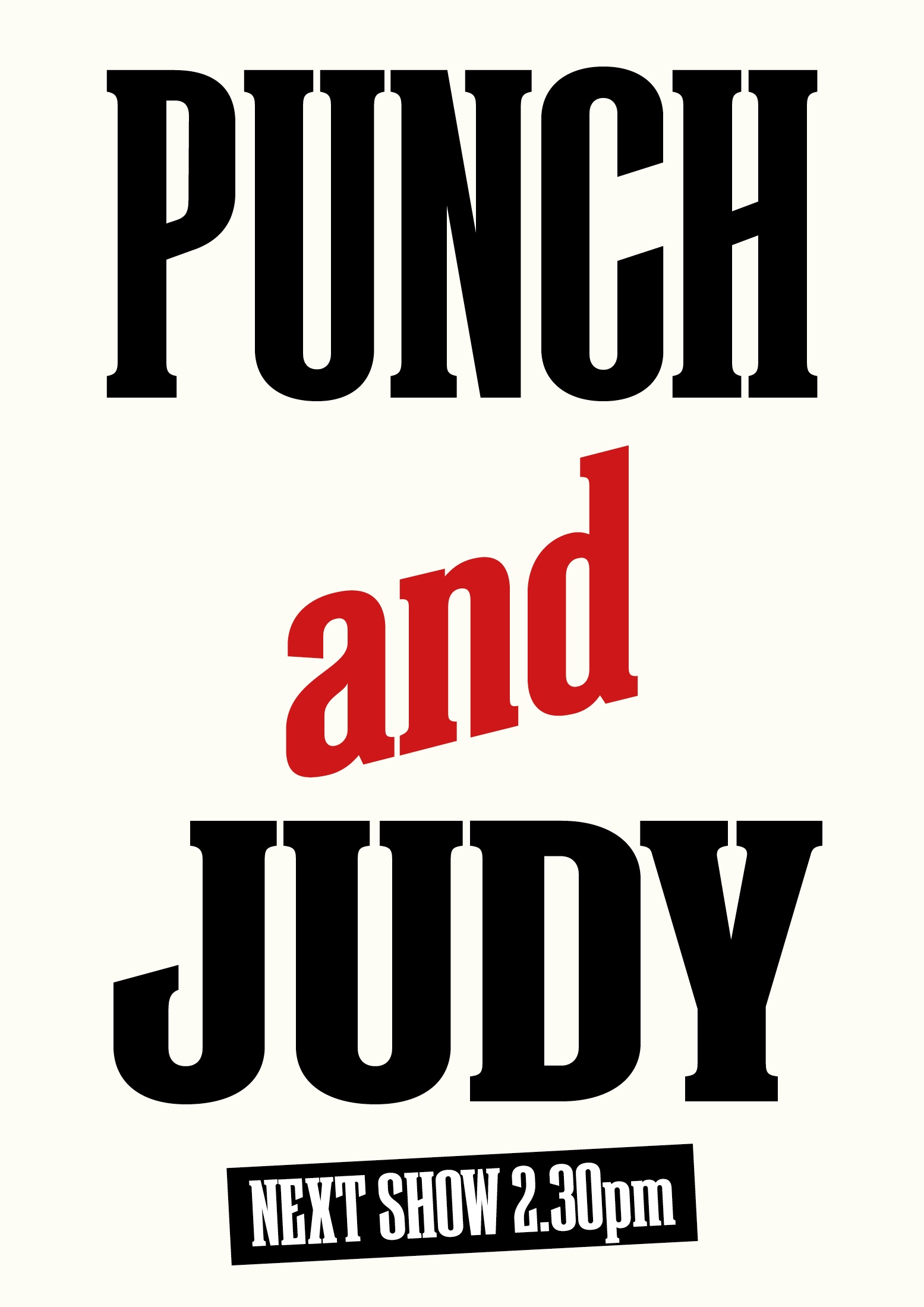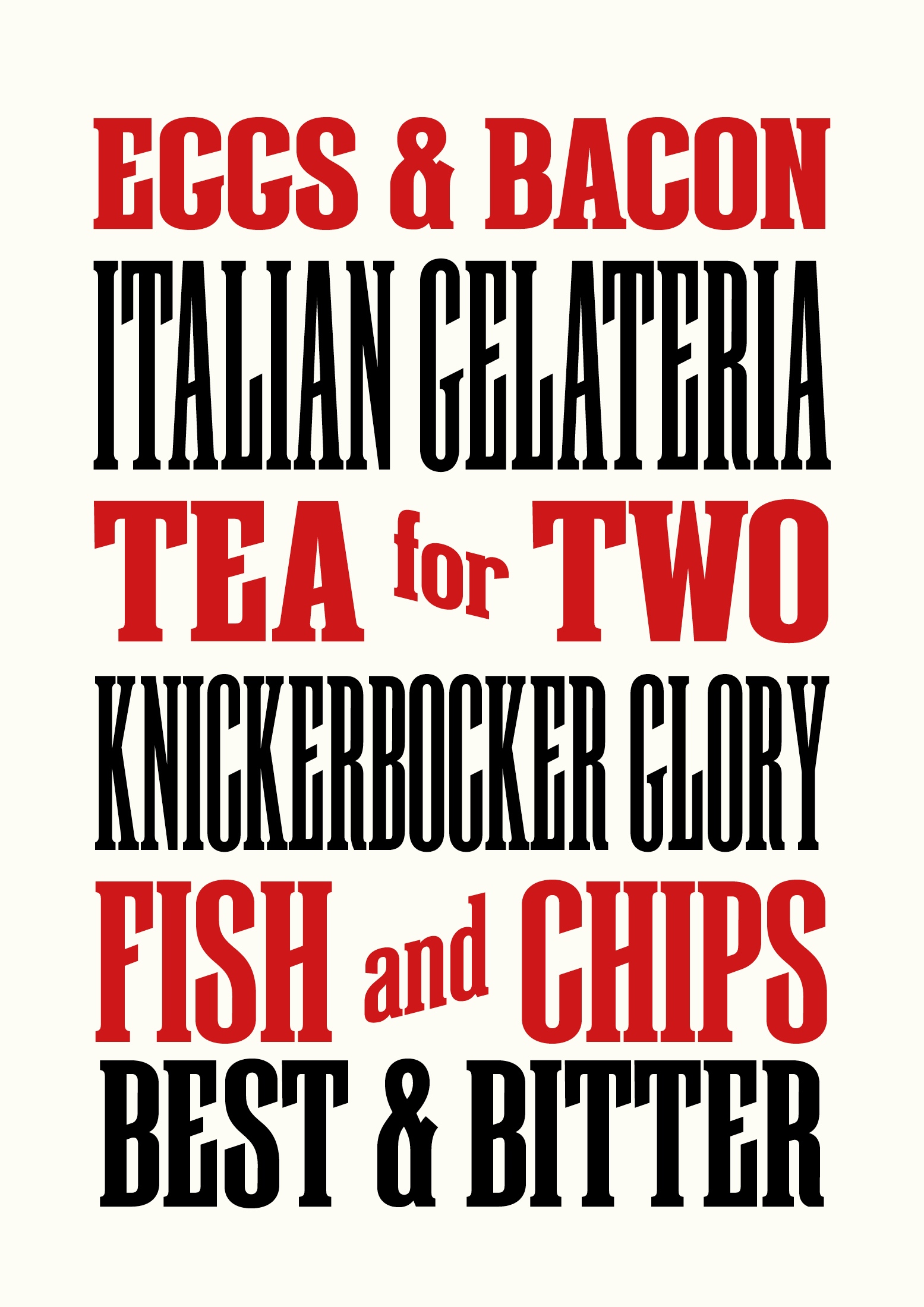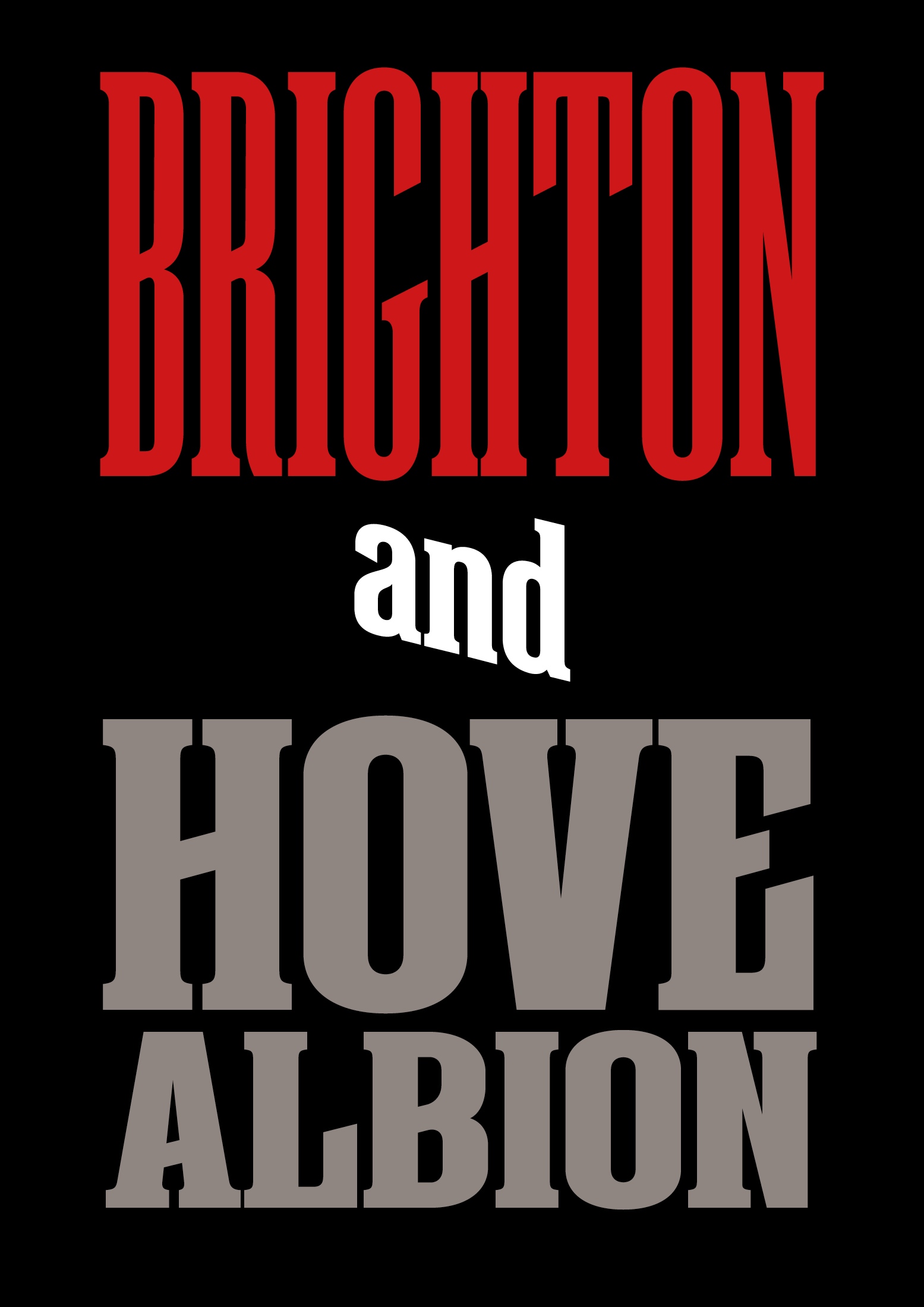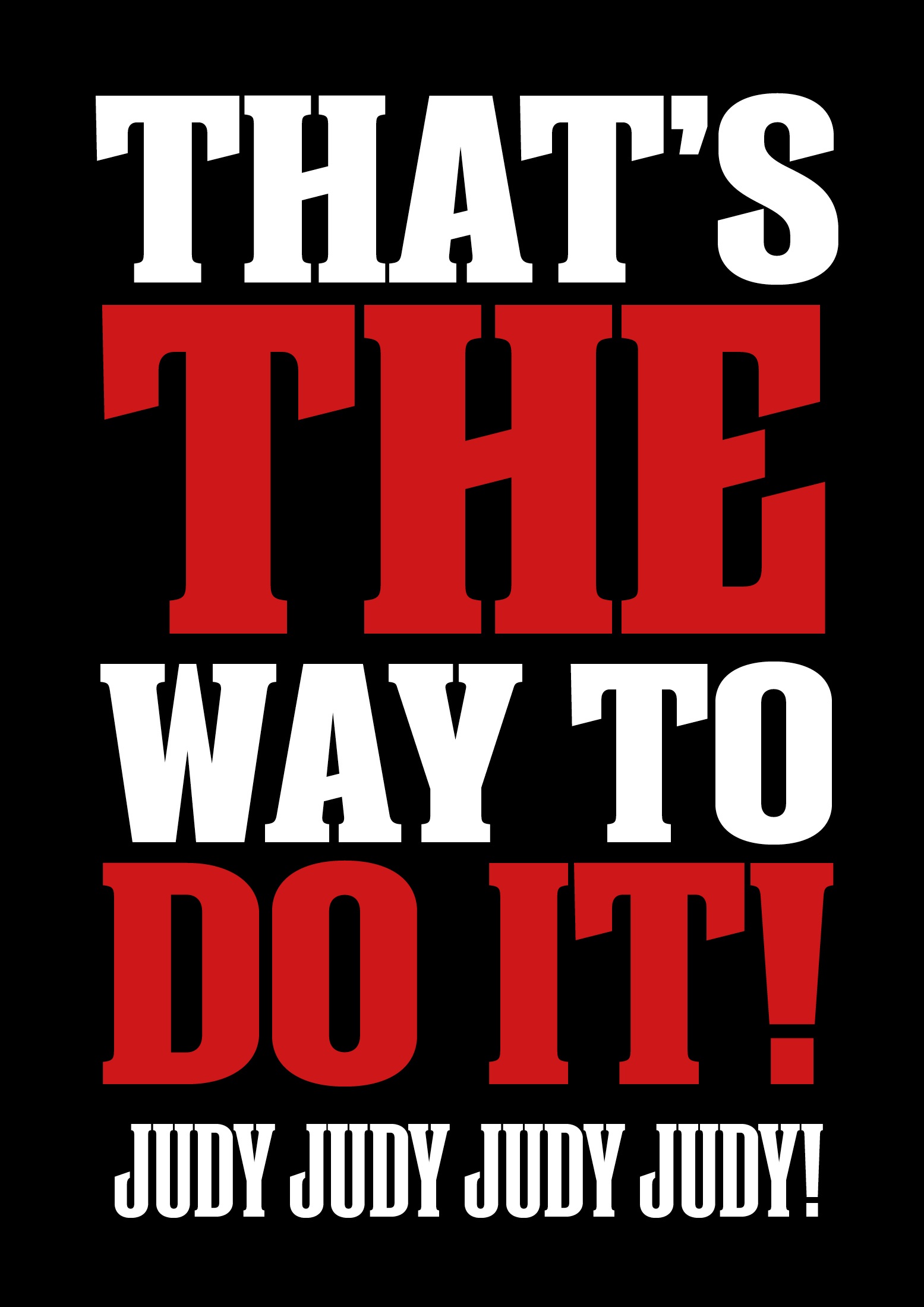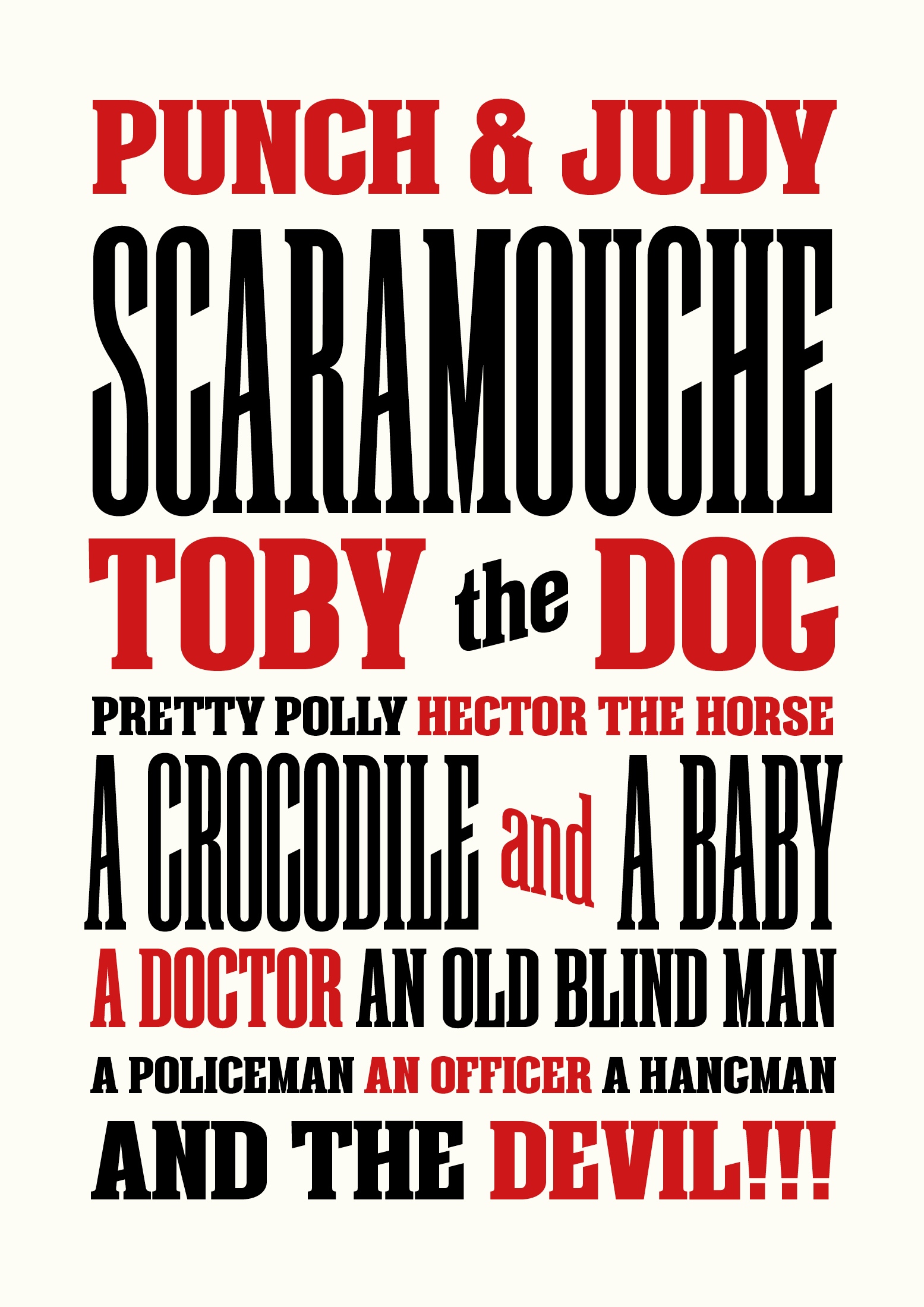
LDN Shadwell
Designed by Paul Hickson, LDN Shadwell is a clever, narrow, woodblock-inspired serif typeface, with diagonal emphasis on the cross bars that match a number of ‘drop in’ connector words (with, and, at, for etc.) — all at the same diagonal angle.
A great choice for packaging and book cover designs.
7 Styles
Thin, Light, Regular, Medium, Demi, Bold & Black.
The LDN Shadwell family, named after the historically rich East End district of London, contains 7 weights ranging from Thin to Black.